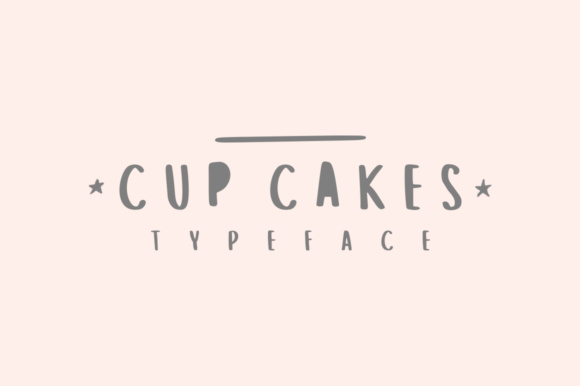
Embark on a delightful journey into the world of Cup Cakes font, a charming handwritten sans serif creation by AMTYPES, designed to bring a touch of whimsy and playfulness to your creative projects. Cup Cakes' lighthearted nature makes it a perfect fit for crafting captivating quotes, playful logos, eye-catching badges, unique packaging designs, and vibrant headlines that beckon attention.
Cup Cakes' simplicity and ease of use make it a joy to work with, allowing you to effortlessly infuse your designs with personality. Its unpretentious style adds a touch of warmth and approachability, making your creations resonate with audiences.
Picture this: a delightful quote about life's sweet moments, adorned with the whimsical strokes of Cup Cakes, inviting readers to savor the essence of joy and positivity. Or, envision a vibrant logo that exudes playfulness and creativity, thanks to the charming curves and loops of Cup Cakes, capturing the attention of potential customers and leaving a lasting impression.
With Cup Cakes, you can create packaging designs that burst with charm and personality, inviting customers to indulge in the experience your products offer. The font's handwritten style adds a personal touch, making your packaging stand out from the crowd and creating an emotional connection with your customers.
Headlines crafted with Cup Cakes have a magnetic effect, drawing readers in with their captivating allure. The font's friendly and approachable nature encourages readers to delve deeper into your content, ensuring your messages are not just seen, but also remembered.
Cup Cakes' versatility extends beyond digital designs; it seamlessly transitions into the realm of physical creations. Use it to design stunning cards, mugs, t-shirts, and other merchandise that radiate warmth and cheer.
With Cup Cakes, the possibilities are as limitless as your imagination. Step into a world where designs come alive with personality and charm. Embrace the magic of Cup Cakes and let your creativity soar.